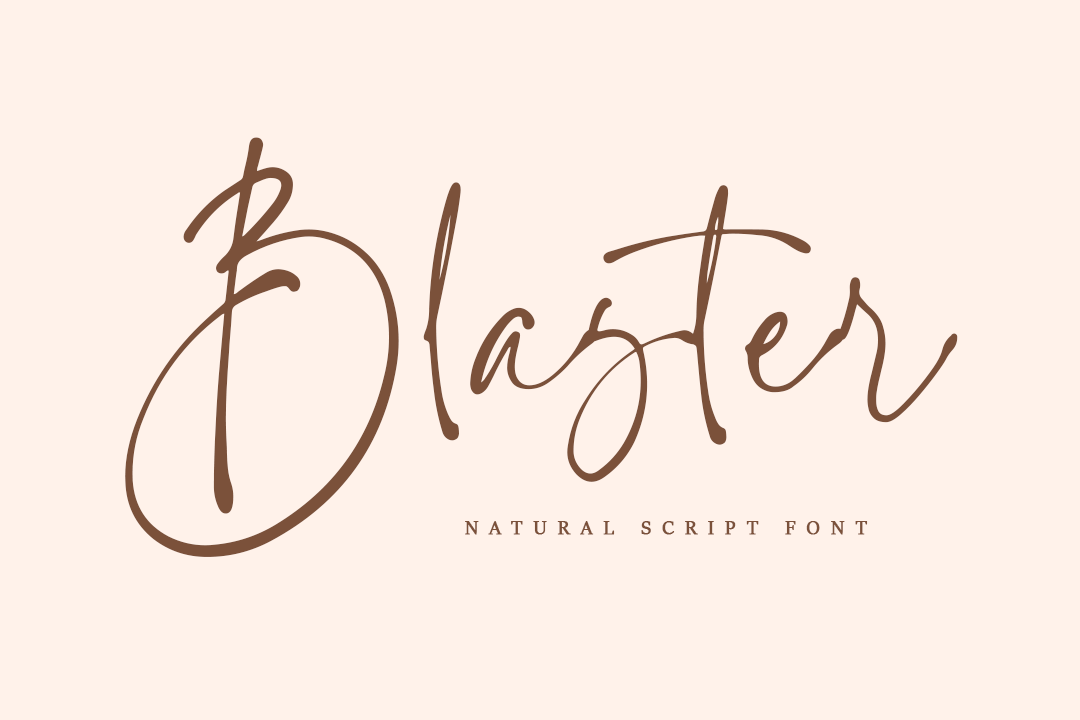
Blaster | Natural Handwritten Font
HI! Introducing my newest font called Blaster.
Blaster is a handwritten font with natural strokes on each glyph. You can use this font in all your designs such as logos, wedding invitations, mockups, etc. Use this font, and your design will be much more elegant!